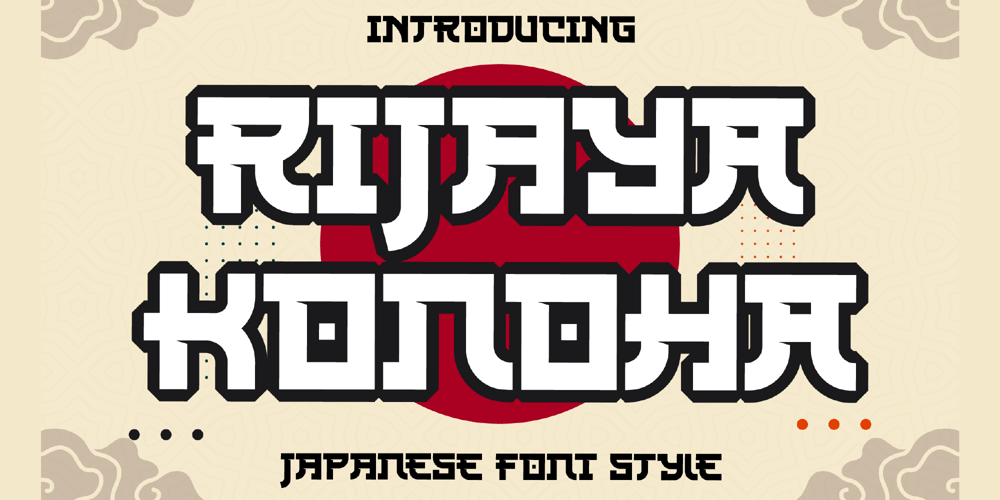
Rijaya Konoha Font Family was designed by Heru Utama Putra and published by Letterena Studios. Rijaya Konoha contains 2 styles and family package options. Rijaya Konoha is a modern and classic serif typeface with a unique style and fancy look. This typeface is perfect for an elegant & luxury logo, book or movie title design, fashion brand, magazine, clothes, lettering, quotes, and so much more.